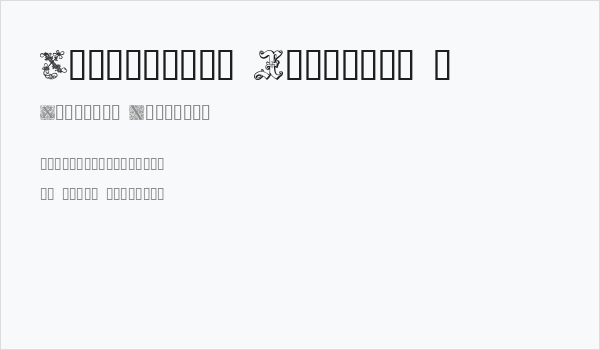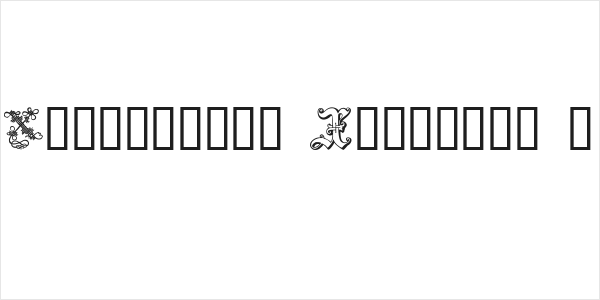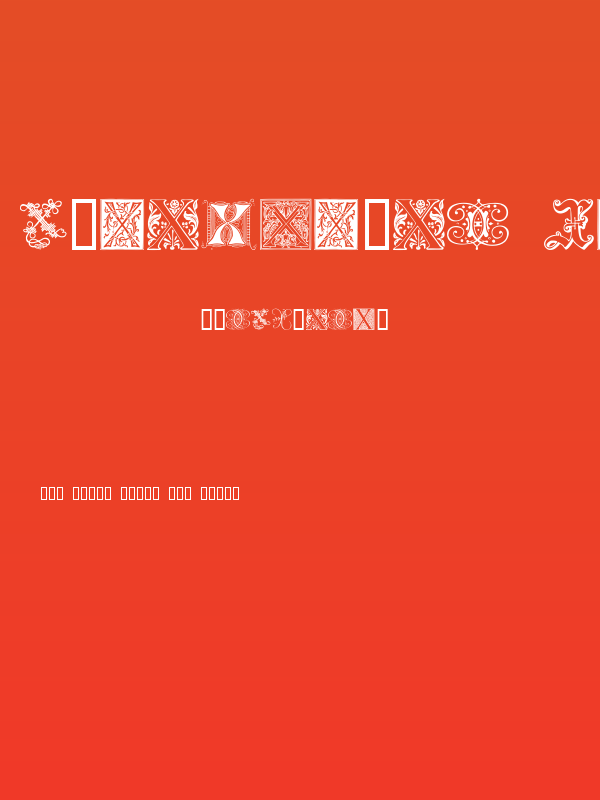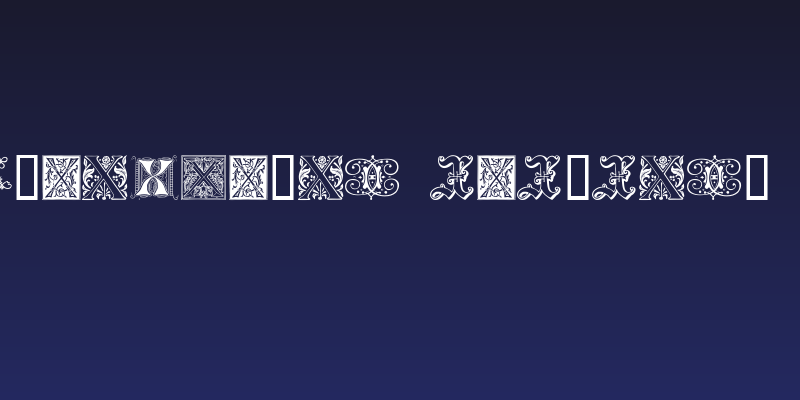
Ornamental Initials X Font
This font features highly decorative and intricate initials, each letter surrounded by elaborate ornamental designs. The style is reminiscent of medieval manuscripts, with each character enclosed in a square or rectangular frame filled with floral and geometric patterns. The letters themselves are bold and prominent, serving as the focal point amidst the detailed embellishments. This font is ideal for projects that require a touch of elegance and historical charm, such as invitations, certificates, or book covers. The intricate designs suggest a handcrafted quality, making it suitable for artistic and vintage-themed applications.
| Proposed Projects | Ideal for invitations, certificates, book covers, and vintage-themed designs. |